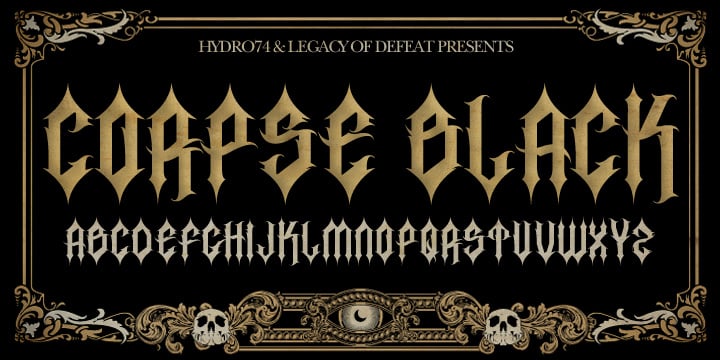
H74 Corpse Black Font is perfect for death metal band branding, horror movie posters, gothic cemetery signage, extreme Halloween events, dark theatrical productions, macabre art exhibitions, underground horror venues, spine-chilling book covers, terrifying gaming interfaces, and sinister entertainment promotions.
What makes H74 Corpse Black Font exciting is its deathly atmosphere that perfectly captures the morbid fascination and gothic darkness found in extreme horror culture and macabre artistic expression. This typeface features corpse-like letterforms with mortuary proportions and death-inspired details that evoke the chilling presence and supernatural terror of gothic horror traditions. The font's macabre personality and death authenticity make it ideal for horror entertainment brands seeking to convey terror, darkness, and the spine-chilling atmosphere that comes from authentic gothic horror and macabre artistic expression.
H74 Corpse Black Font family includes deathly weight variations and gothic alternatives that enhance its horror appeal while providing design flexibility for macabre and horror applications. The font features mortuary ligatures, death-themed ornaments, and corpse-like character variations that create authentic gothic atmosphere for horror and macabre branding.
Horror entertainment companies and gothic lifestyle brands consistently select H74 Corpse Black Font Free Download for projects requiring authentic death appeal and gothic credibility. The font's macabre character excels in applications targeting horror enthusiasts, gothic culture followers, and extreme terror seekers who appreciate genuine gothic horror and macabre artistic expression. Whether you're designing for horror productions, gothic events, or macabre entertainment venues, this terrifying typeface delivers the death authenticity and gothic atmosphere that resonates with audiences seeking genuine horror experiences and the spine-chilling terror that defines extreme gothic culture and macabre artistic tradition.